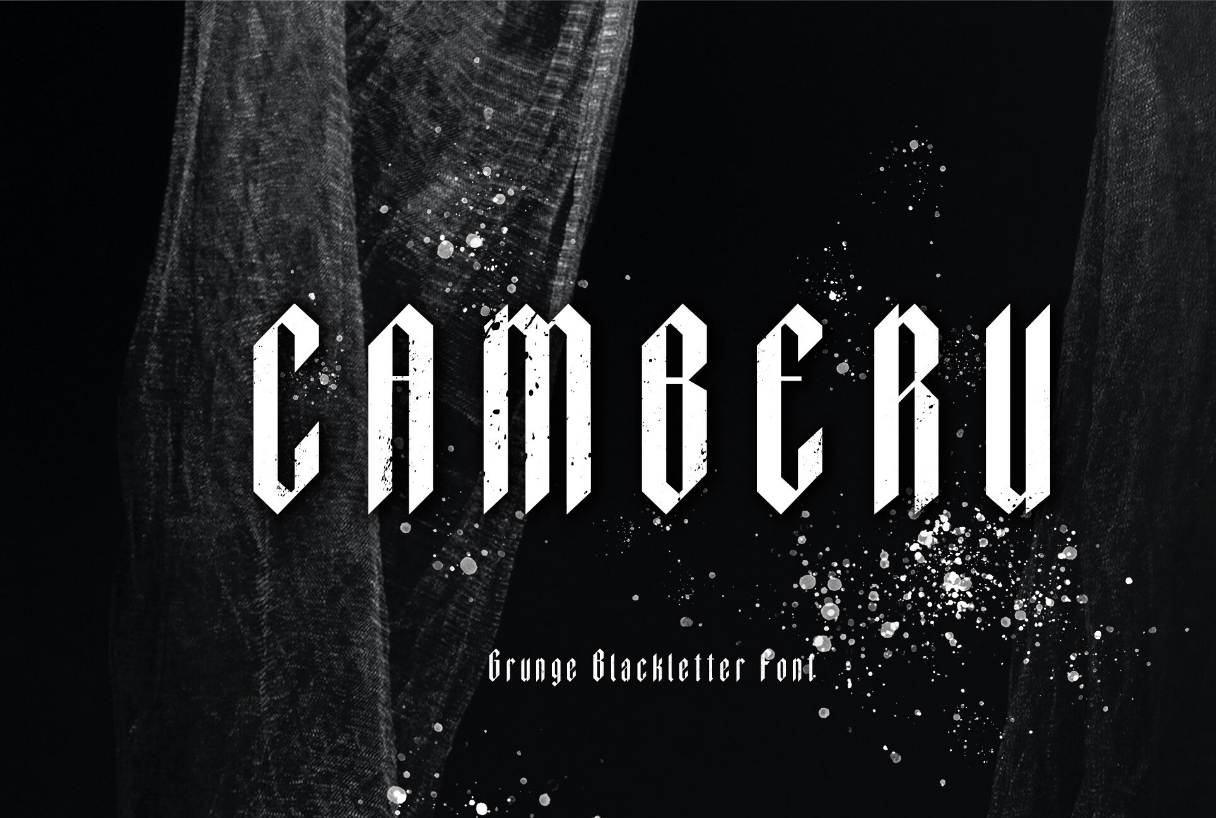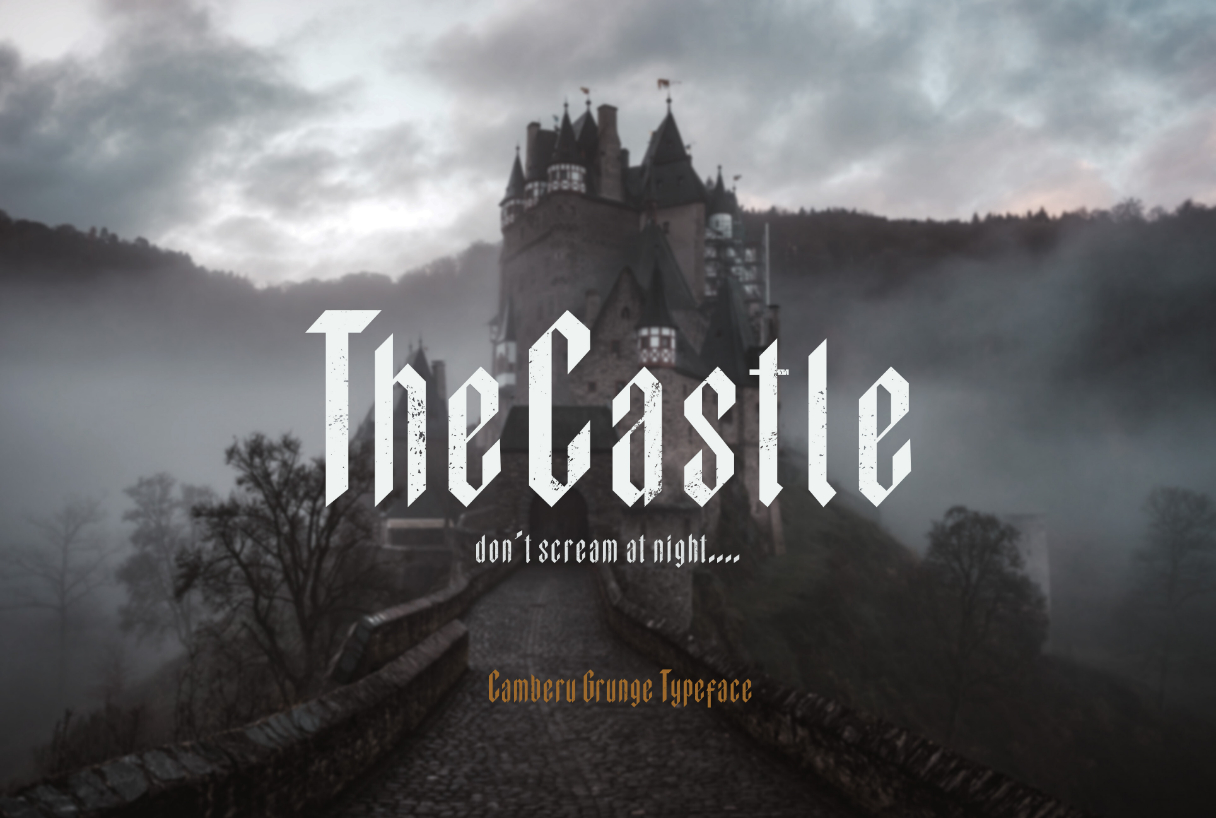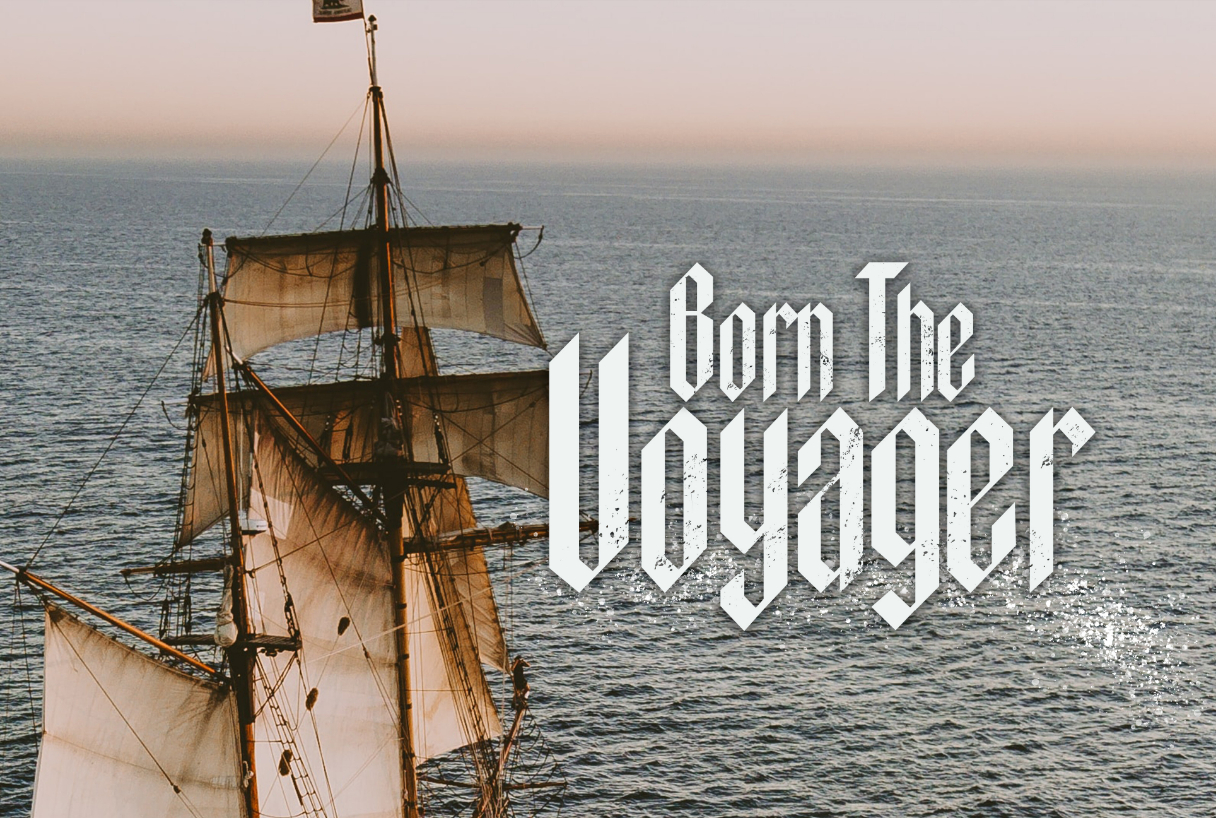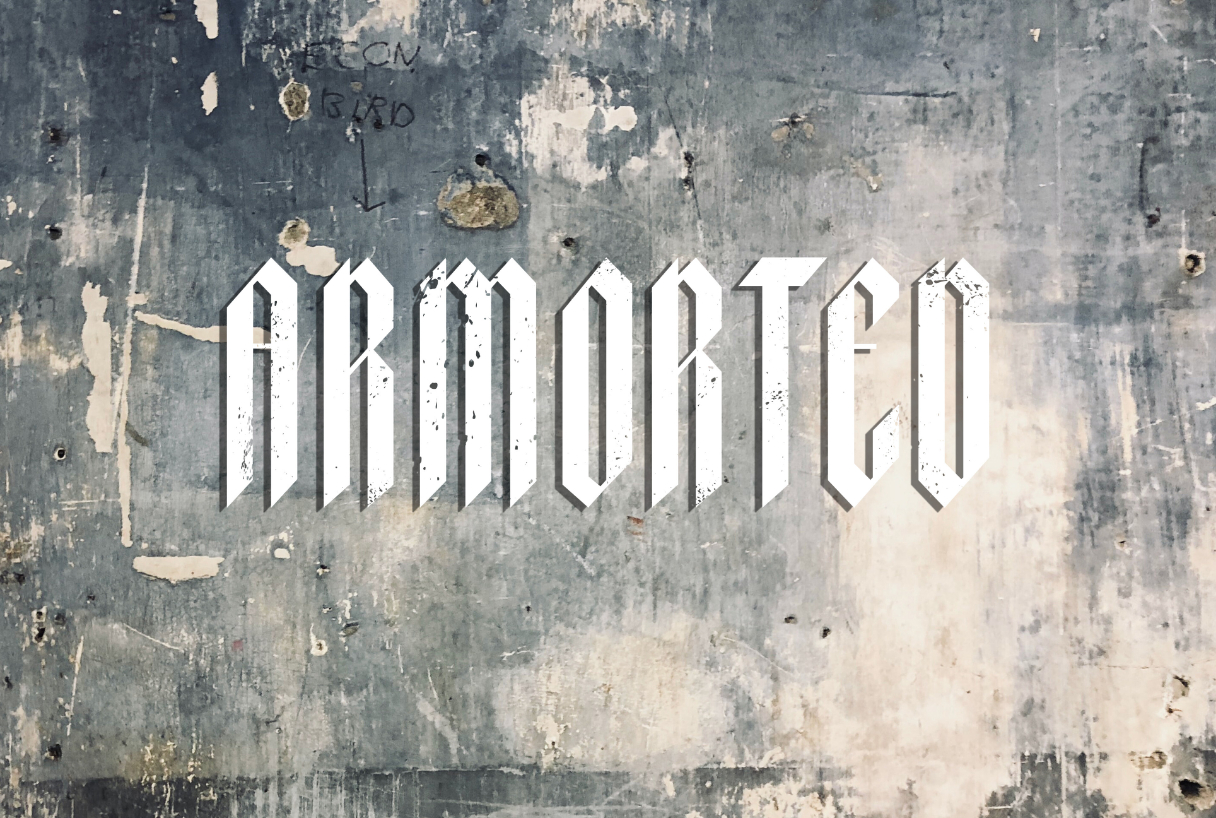
Camberu Font
About Camberu Font
The Camberu grunge font includes uppercase letters, numbers, and a wide variety of punctuation. Black letter font in gothic style with grunge effect. Created for posters, web design, branding, illustrations, badges, t-shirt designs and several other works.